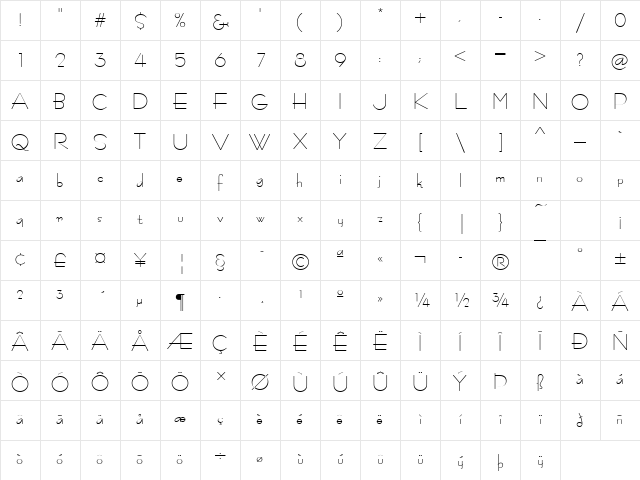
Konkord-Retro wears its vintage influences proudly, with letterforms that recall mid-century signage, classic packaging, and nostalgia-driven design.
Ideal for diner signage, record shop branding, 70s/80s-themed projects, and heritage product labels.
Font Pairing: Combine Konkord-Retro with a simple slab or neutral sans - period-accurate companions reinforce the vintage feel without competing for attention.
Pro Tip: Lean into Konkord-Retro's period character by pairing it with aged paper textures, muted colour palettes, and vintage illustration styles.